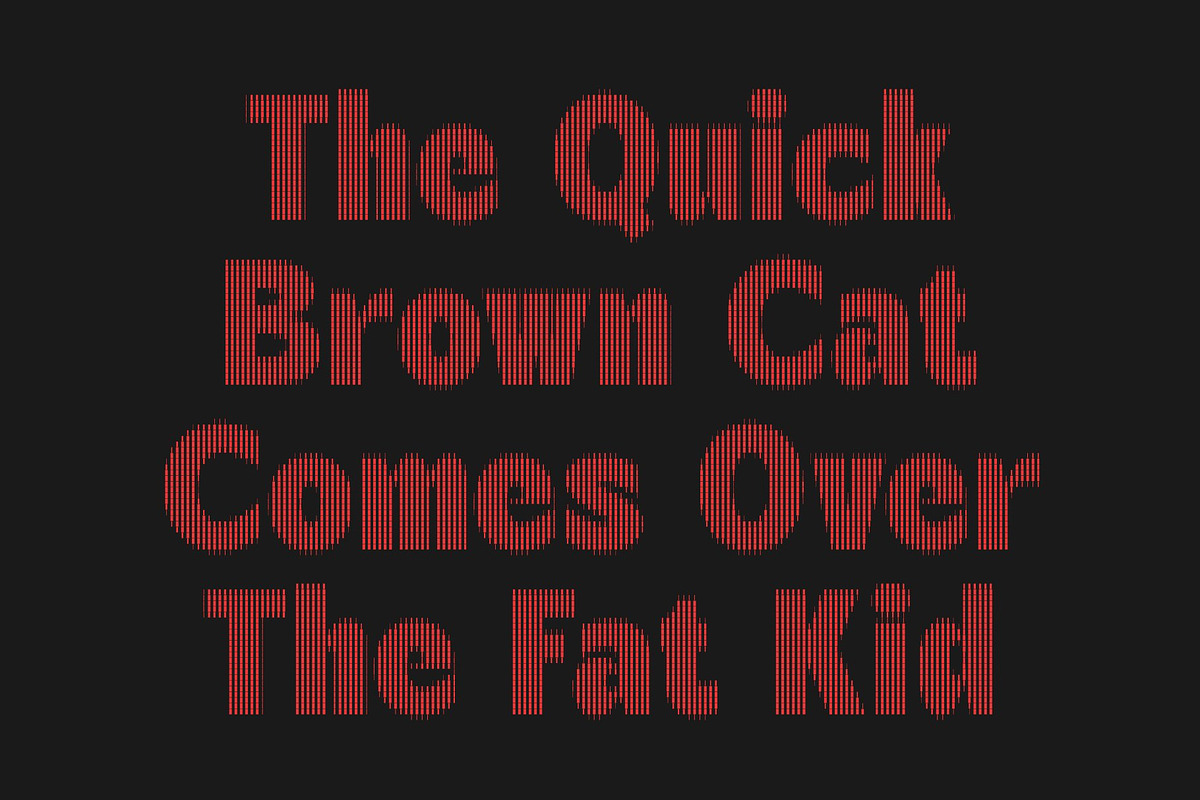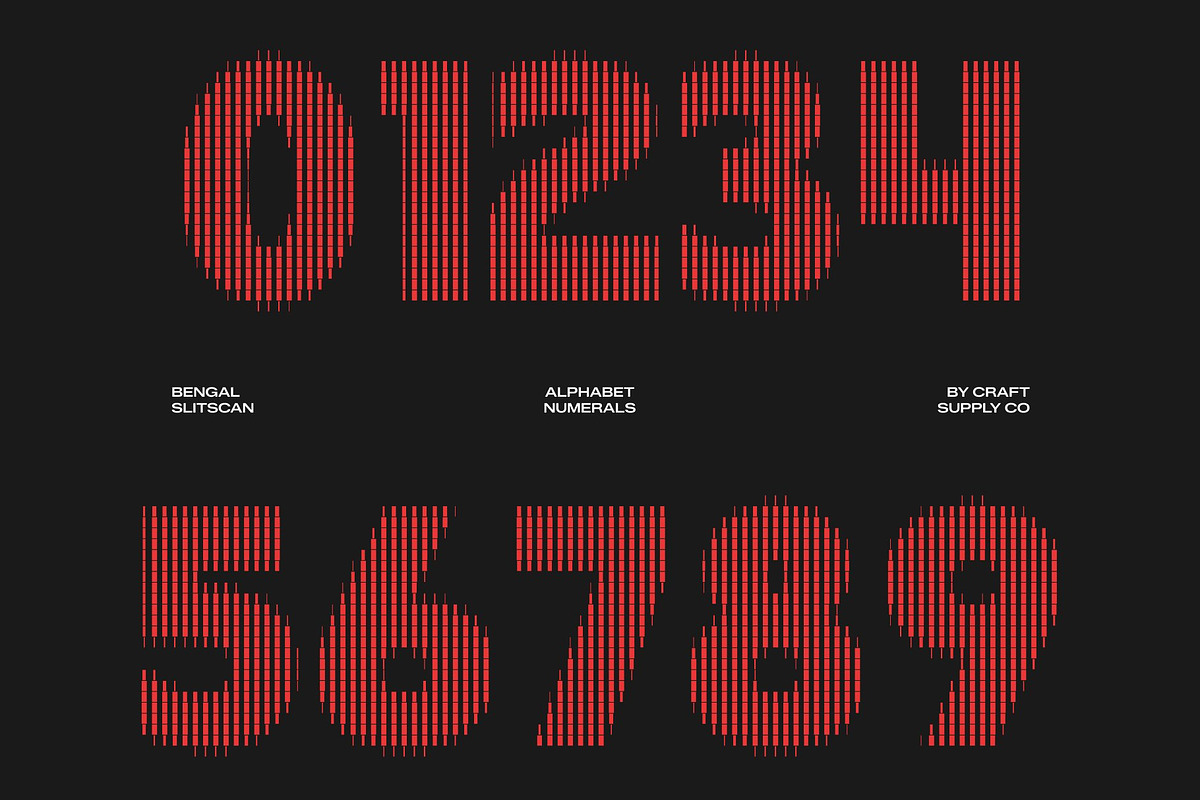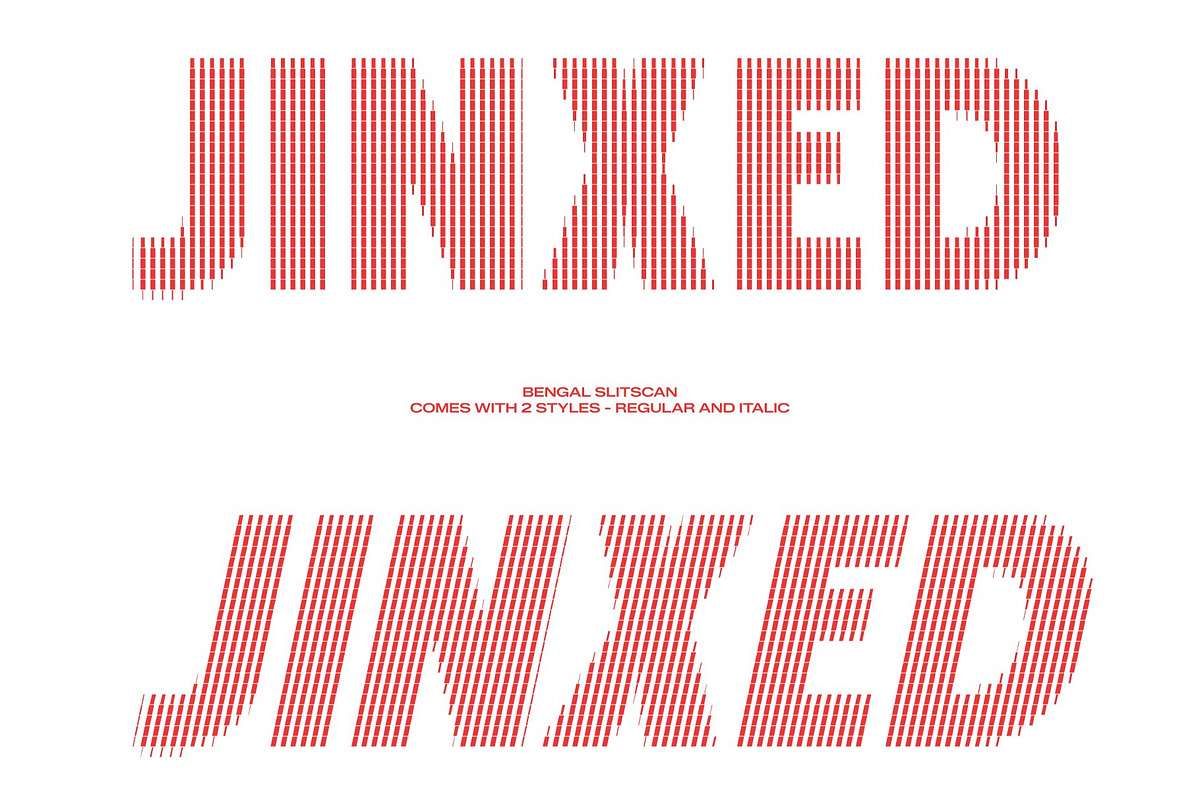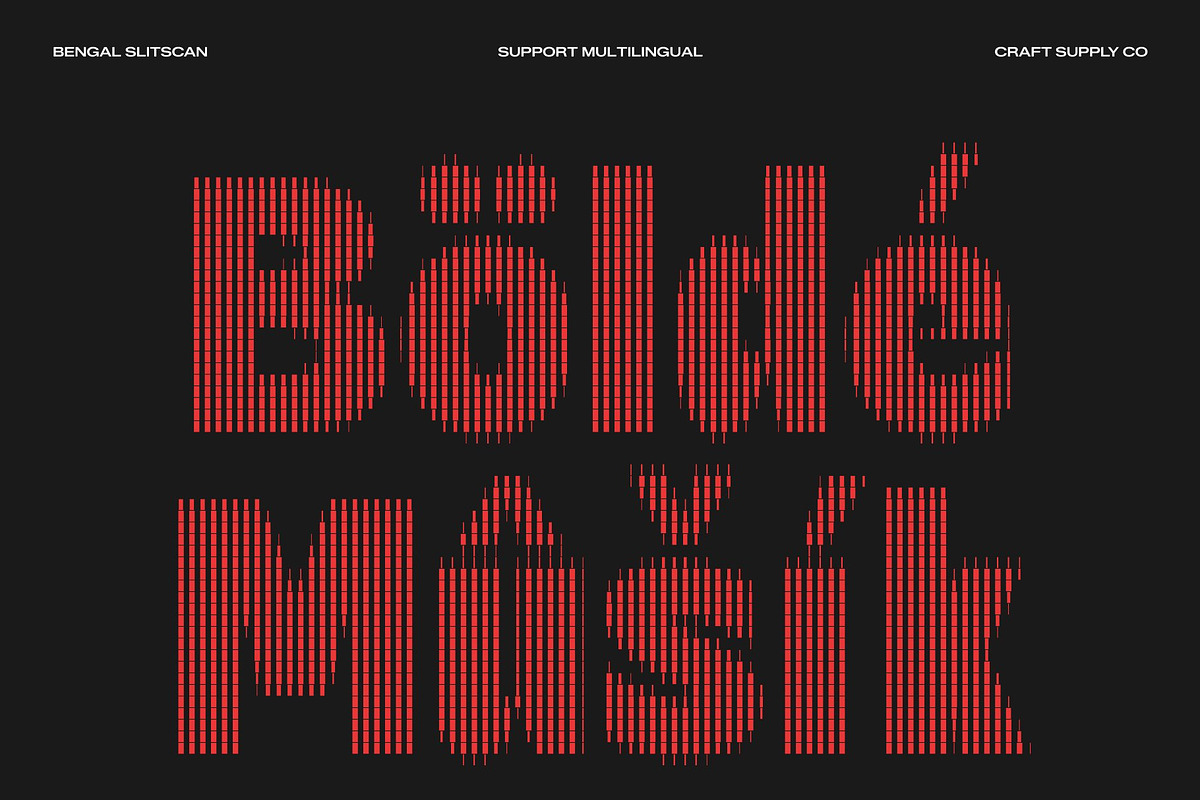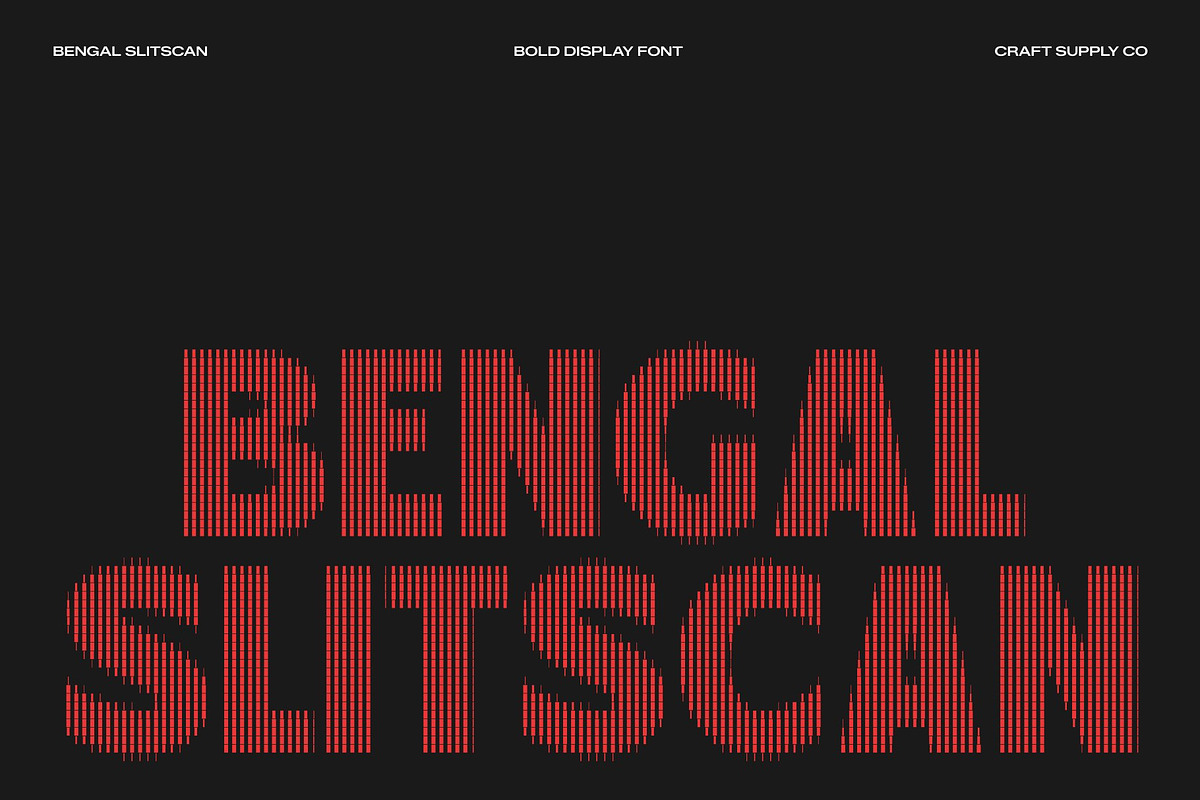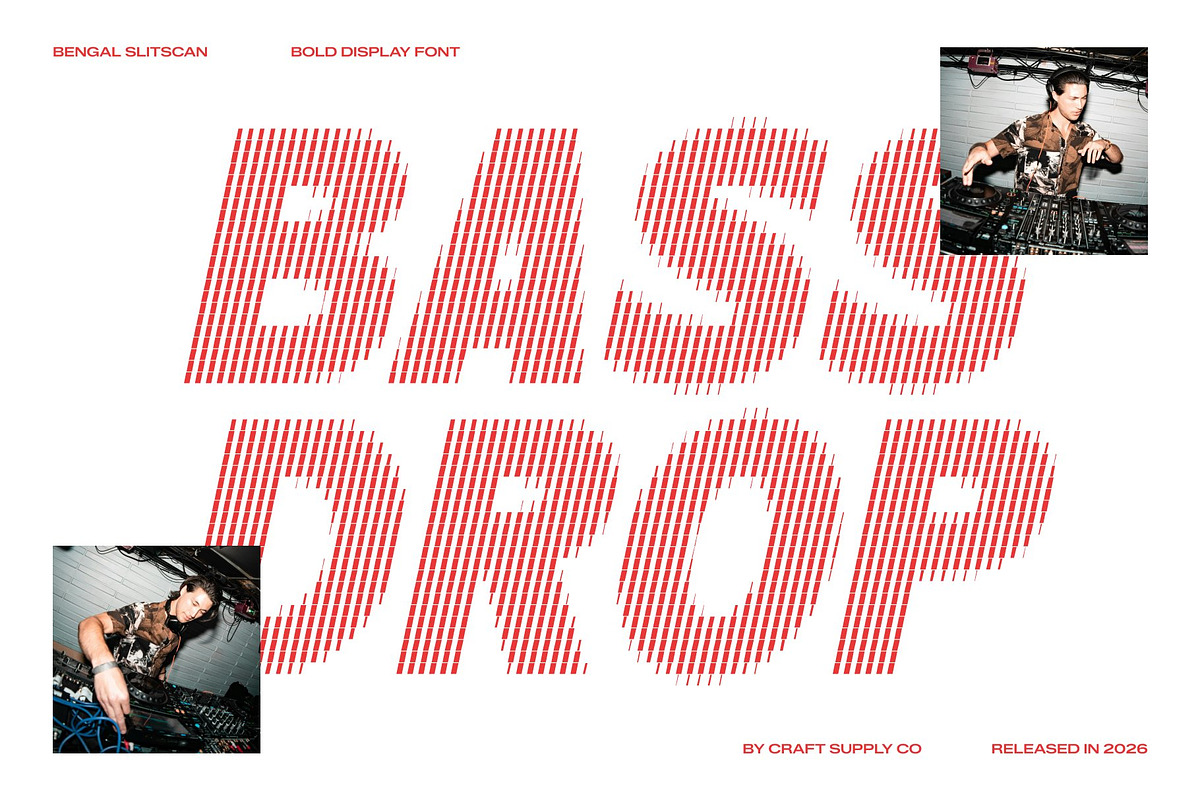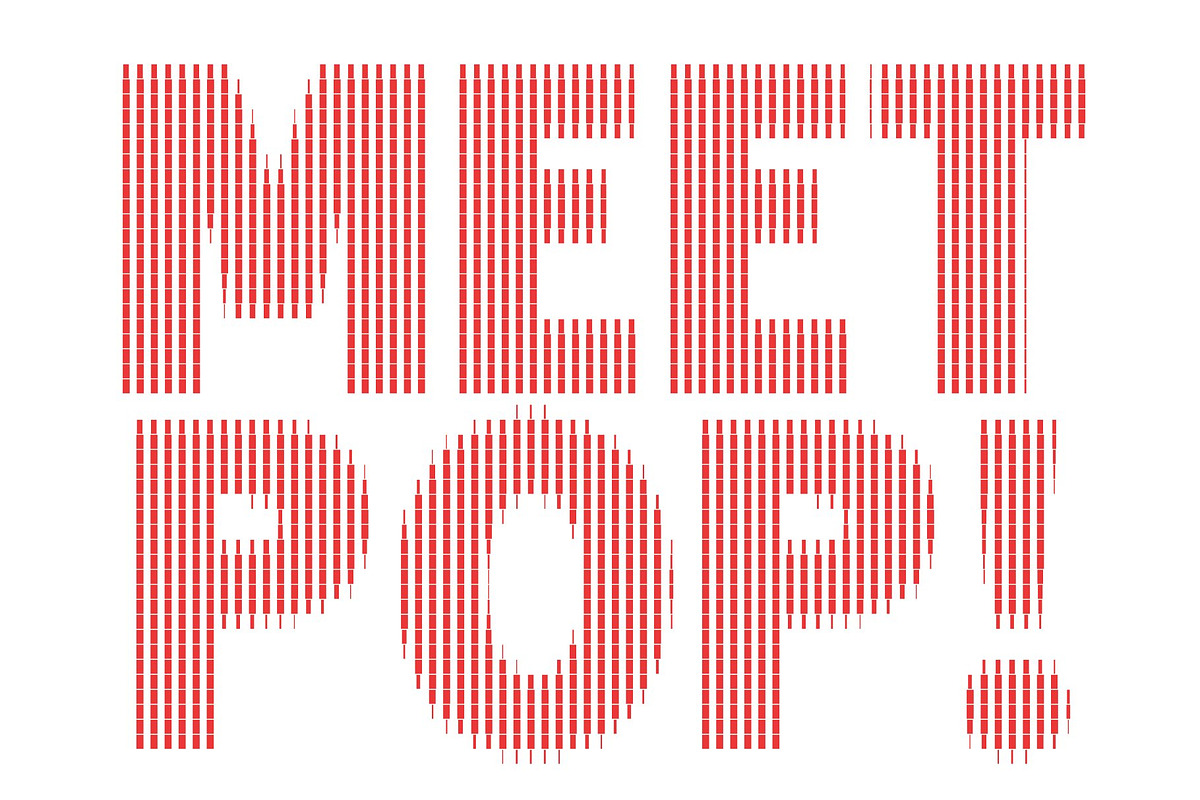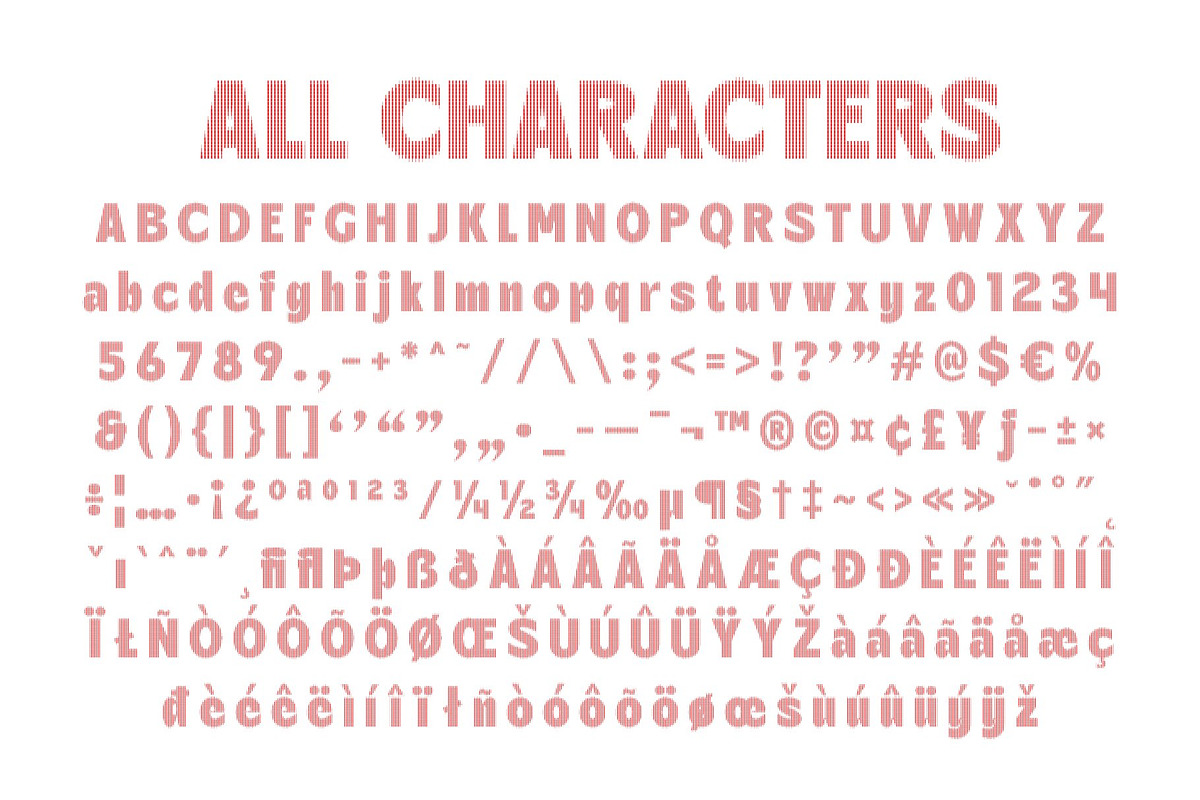
Bengal Slitscan
Bengal Slitscan – Retro Boldness with Futuristic Motion
Bold Retro Sans Serif with Nostalgic Energy This is a bold sans serif display typeface inspired by classic retro aesthetics and vintage visual culture. Its strong shapes and confident structure create a nostalgic atmosphere while maintaining a fresh and contemporary appearance.
Slitscan Effect: Vintage Style Meets Digital Distortion Infused with the slit-scan visual effect, this typeface features vertical sliced layers that introduce movement, rhythm, and futuristic energy. The result is a striking fusion of retro boldness and modern experimental motion, giving the font a unique and eye-catching personality.
Bold Style with Classic Appeal Heavy strokes and solid construction give this font a commanding presence across posters, branding, and display layouts. Its retro-inspired forms evoke familiarity and warmth while remaining visually powerful and highly impactful.
Perfect for Nostalgic and Creative Projects Ideal for vintage-inspired branding, throwback posters, album covers, packaging, event promotions, and expressive visual identities. This font captures the spirit of retro design while adding a modern glitch-inspired edge.
Versatile, Readable, and Full of Character Despite its distinctive style, the font remains versatile and easy to use across different sizes and formats. Its balanced structure preserves readability while allowing the retro personality and dynamic slit-scan effect to stand out beautifully.
Bengal Slitscan Regular
Bengal Slitscan Italic